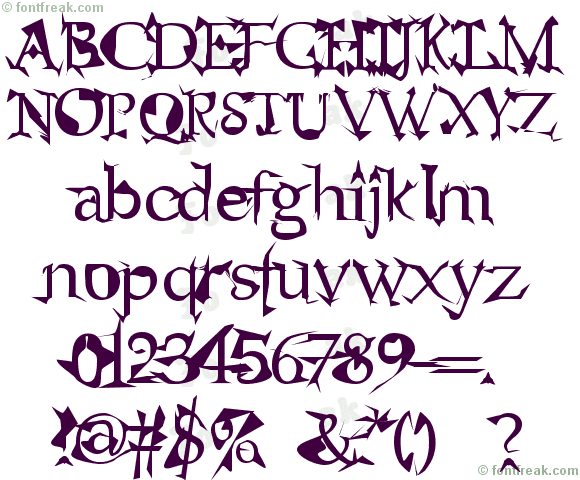
Alien
About Alien
The Alien font by M.c. Creative Fonts is a striking display typeface that evokes a sense of otherworldliness and creativity. With its unique style, this font falls into the decorative category, featuring an unconventional design that captures attention. The letters boast irregular shapes and whimsical curves, giving the font a playful yet mysterious aesthetic. The stroke weight varies, with some characters appearing bolder than others, adding a dynamic quality to the overall appearance. The spacing between letters is thoughtfully designed, ensuring readability while maintaining a captivating visual rhythm.
This font is particularly well-suited for a variety of creative projects. It can be effectively used in movie posters, where its extraterrestrial vibes can enhance themes of science fiction and fantasy. Wedding invitations can also benefit from its distinctive flair, creating an unforgettable impression for guests. Additionally, the Alien font is perfect for children's books, where its fun and quirky characters can engage young readers. Small business owners looking to make their branding memorable will find this font ideal for logos and promotional materials, while content creators can use it in social media graphics to attract attention.
Target audiences for the Alien font include graphic designers seeking to add a unique touch to their projects, small business owners aiming for standout branding, and content creators looking for eye-catching type to enhance their visual storytelling.
What sets the Alien font apart is its ability to blend creativity with functionality. The playful and imaginative design makes it not just a typeface but a conversation starter. For those interested in enhancing their design repertoire, the Alien font free download is a fantastic opportunity to explore a font that truly stands out in any application.